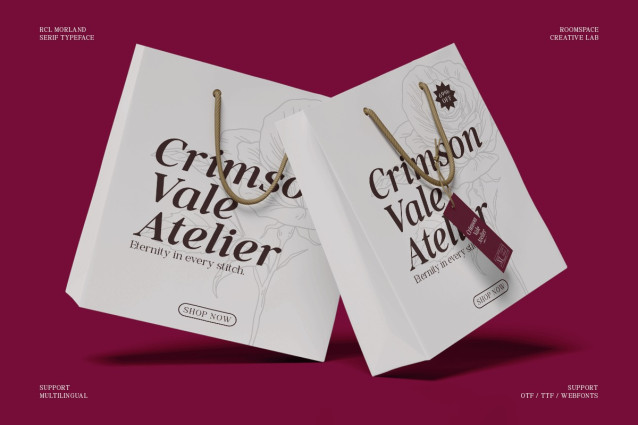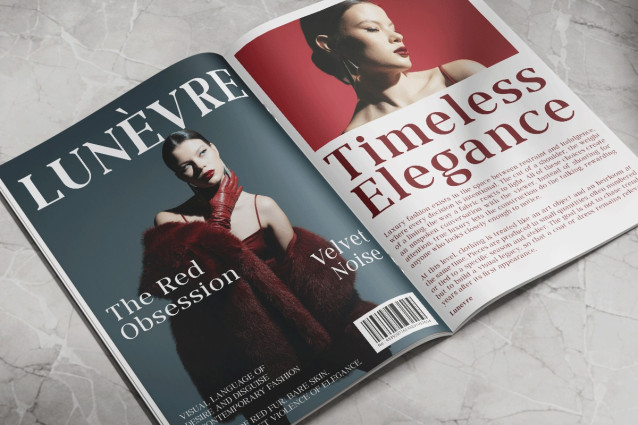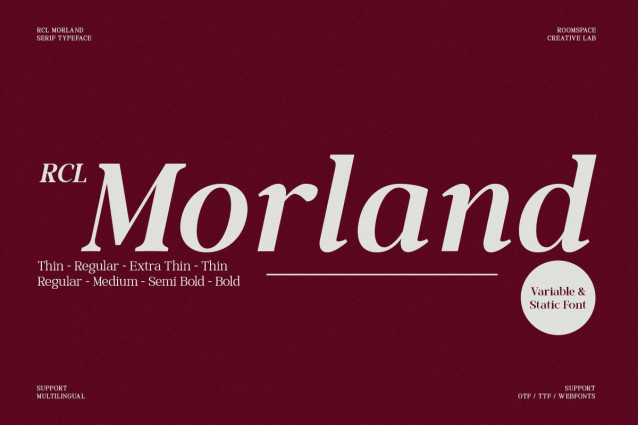
Morland Font
Morland Font a modern serif typeface designed to elevate your designs with elegance and clarity. Combining classic serif character with contemporary balance, Morland brings sophistication to editorial layouts, branding systems, and luxury projects. Its clean structure and versatile weights make Morland an ideal choice for designers seeking a timeless yet modern aesthetic.